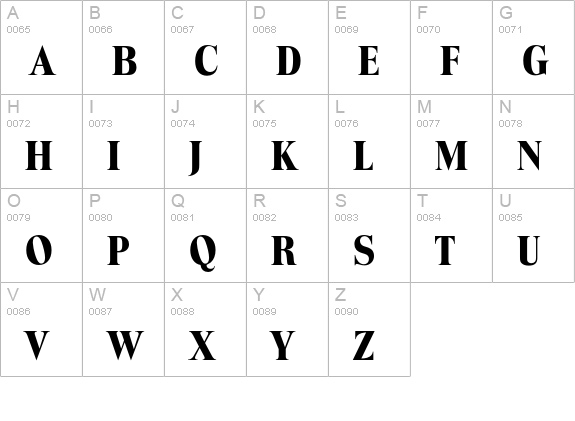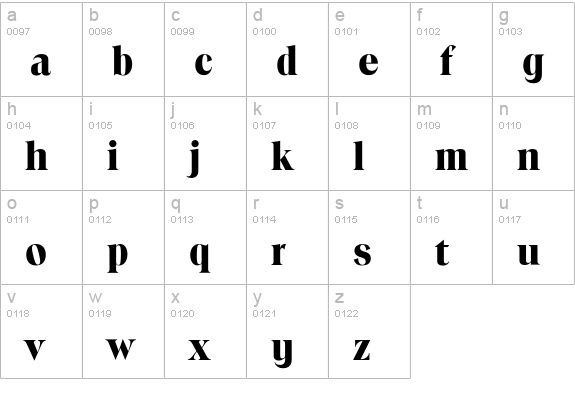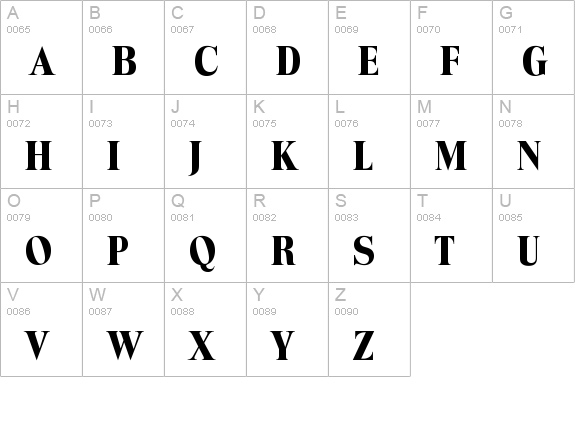
Toledo-Bold is a strong, high-contrast variant in the Toledo typeface family \xE2\x80\x94 well suited to headlines, attention-grabbing titles, and strong calls-to-action.
Toledo-Bold font is a striking and impactful typeface that exudes confidence and strength. Its bold and commanding letterforms make a bold statement, making it perfect for headlines, titles, and other attention-grabbing designs. This versatile font is expertly designed with a balance of elegance and power, making it suitable for a wide range of creative projects. Whether you're designing a logo, creating marketing materials, or crafting a poster, Toledo-Bold will add a touch of sophistication and professionalism to your work. One of the best things about Toledo-Bold font is that it is available for free download at FontsMarket.com. This means that you can freely access this exceptional font and incorporate it into your designs without any hassle. FontsMarket.com offers a vast collection of high-quality fonts, and Toledo-Bold is just one of the many gems you can find on their website. So, if you're looking for a bold and impactful font that will make your designs stand out, look no further than Toledo-Bold. Download it for free at FontsMarket.com and unleash the power of this exceptional typeface in your creative endeavors.